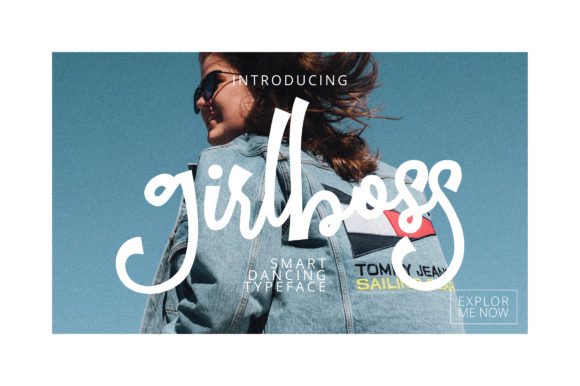
Introduction to Girlboss Font
Get bossy.
Girlboss is a lovely and strong display font with an undeniably unique charm Get inspired by its strong feel, and turn any design project into a stand out.
Key Features of Girlboss Font
Why Choose Girlboss Font?
Girlboss Font offers exceptional quality and versatility, making it a valuable addition to your design toolkit. Whether you’re creating for personal projects or commercial use, Girlboss Font delivers professional results.